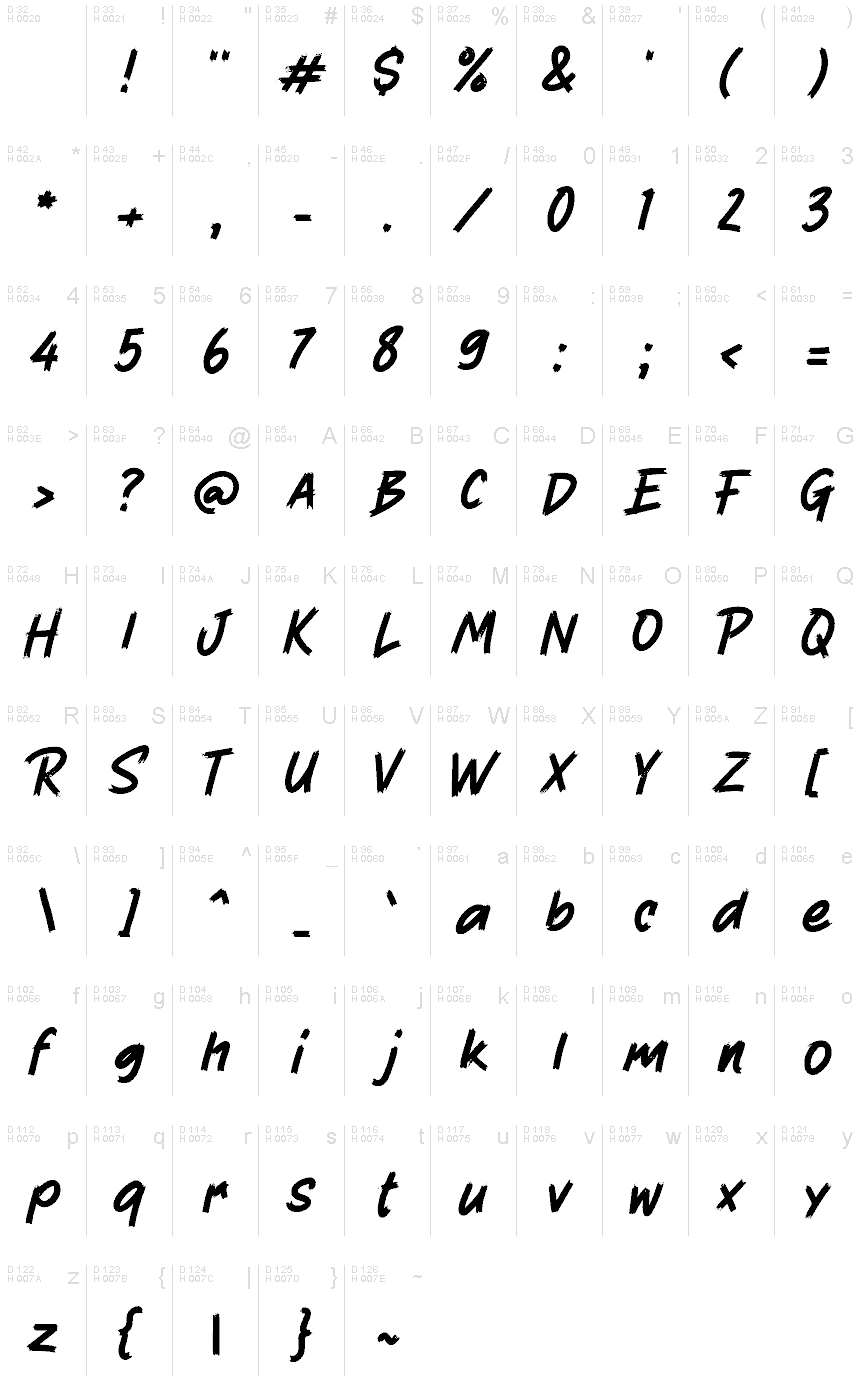
Huft
Huft font by wep is a textured brush typeface with expressive grunge characters. The free display font offers users letters with dense and extremely rough textures, combining it with unusual shapes to create the most artistic headlines you’ll come across. The modern look of this resource comes as a result of combining the old with new styles, giving every design an avant-garde yet unique feel.
Besides headlines, Huft fits lots of other purposes such as logo design, bold posters, book covers, fashion magazines titles or pages and promotional ads. It could also be used for website headers or typography on client presentations in addition to branding work for certain companies that need an extra hint of creativity in their appearances.